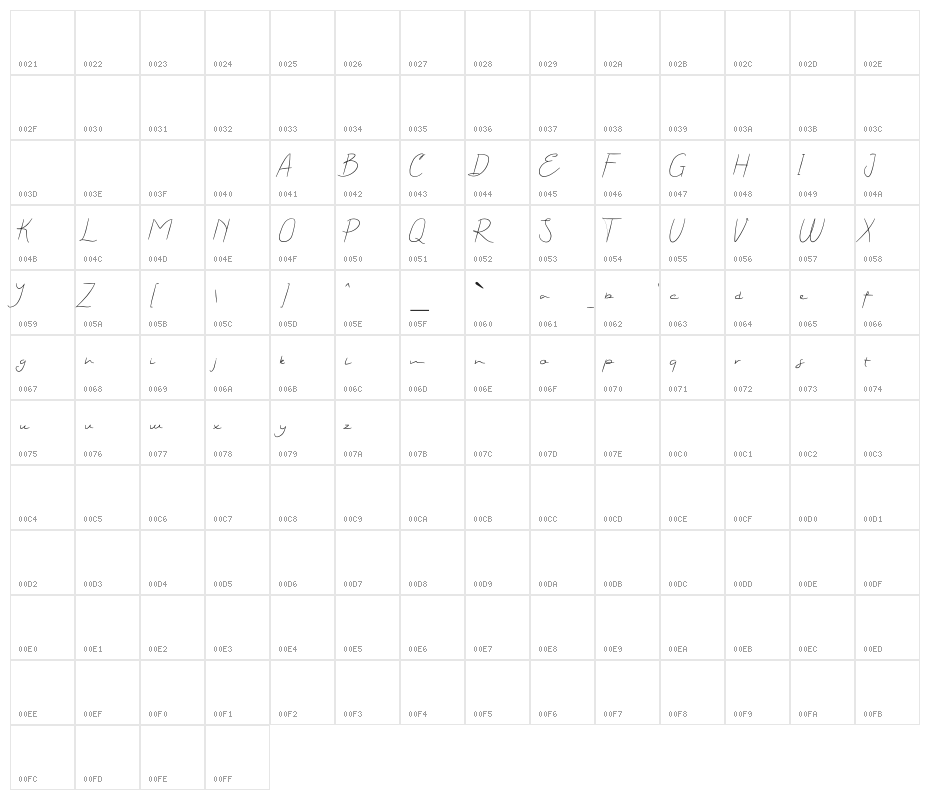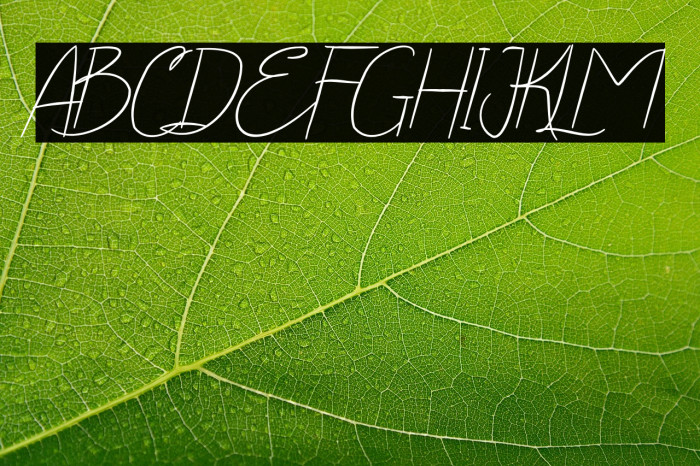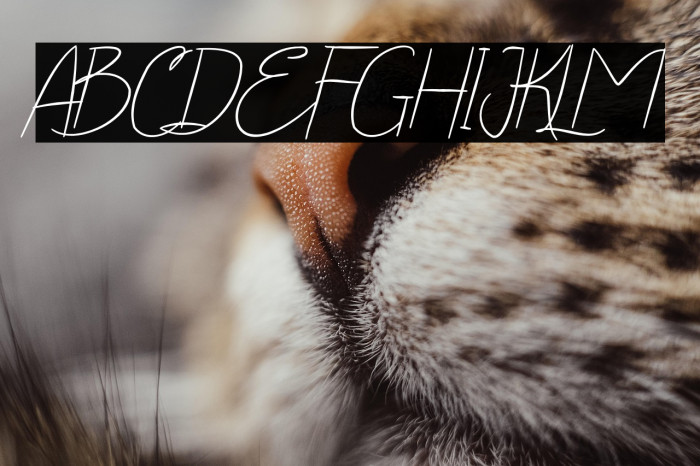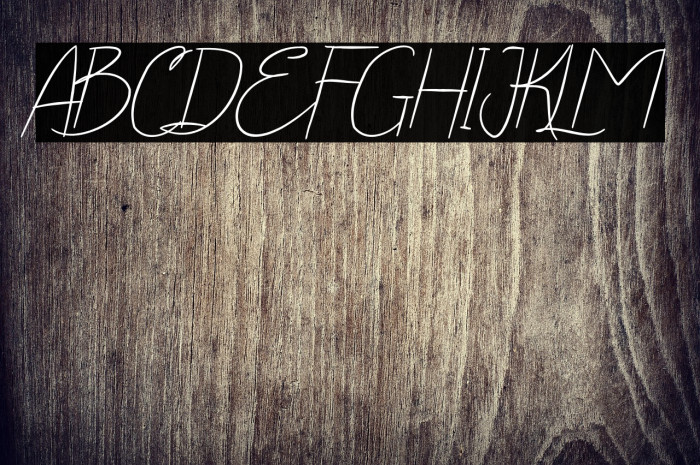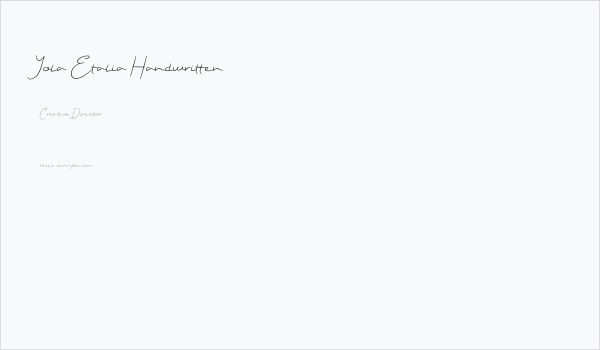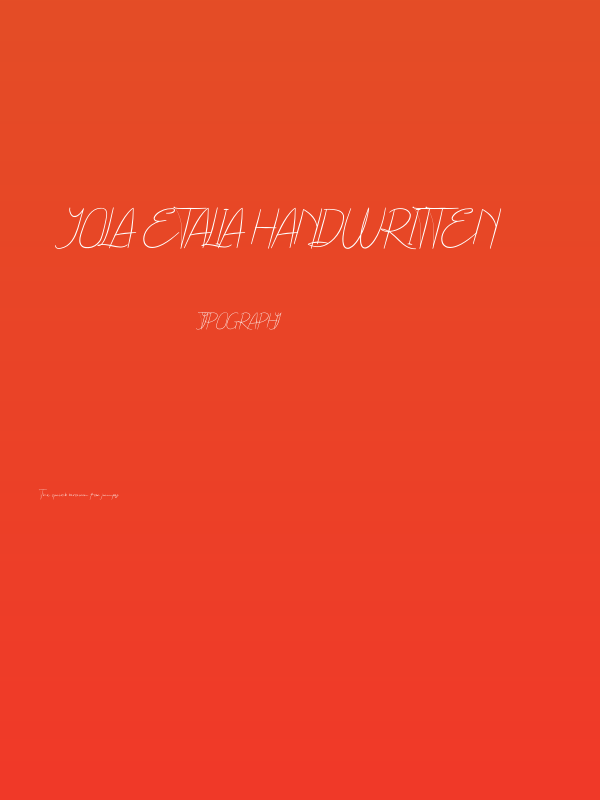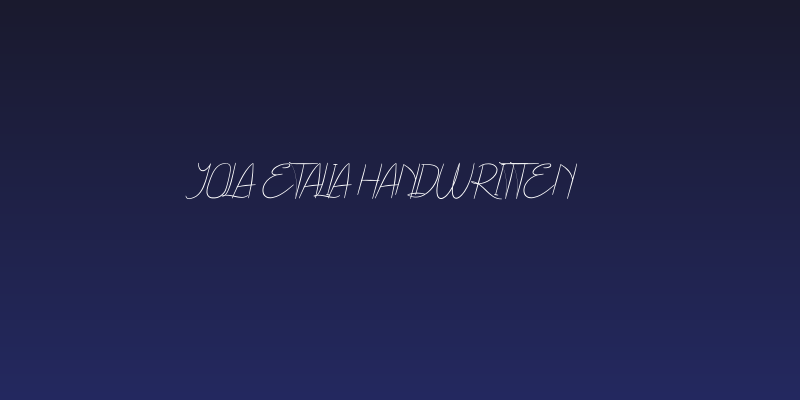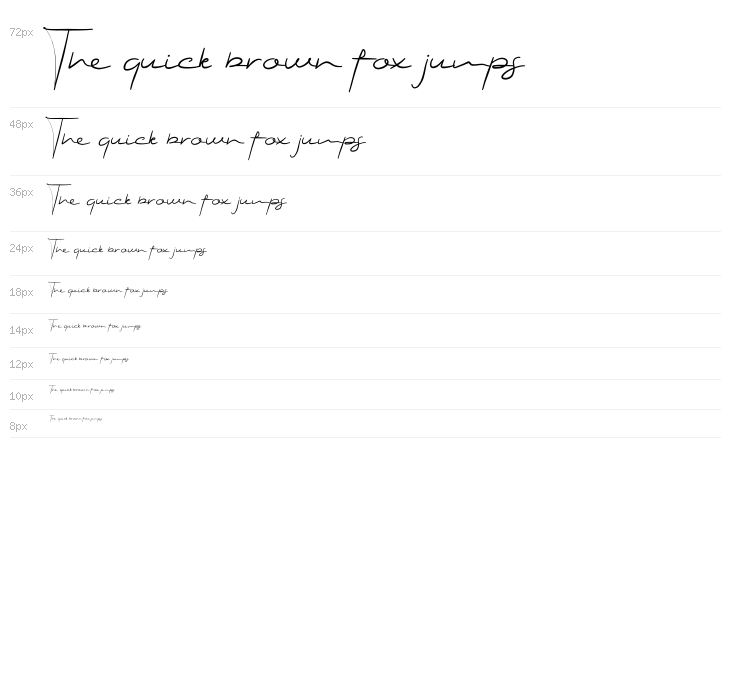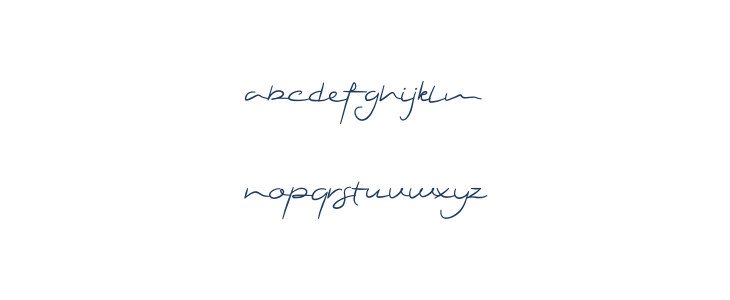
Yola Etalia Handwritten Font
Yola Etalia Handwritten Description
This font showcases a fluid, handwritten style that exudes elegance and personality. The characters are crafted with a natural flow, resembling authentic handwriting with a slight slant, adding a touch of sophistication. The uppercase letters are tall and slender, while the lowercase letters maintain a consistent, flowing baseline, enhancing readability. The strokes are smooth and continuous, with subtle variations in thickness that add depth and character. This font is ideal for projects that require a personal touch, such as invitations, greeting cards, and branding materials. Its handwritten nature makes it versatile for both formal and informal contexts, providing a unique and stylish appearance.
| Overall Style | Elegant, Personal, Stylish |
| Use Case | Invitations, Greeting cards, Branding |
| Proposed Projects | Ideal for invitations, greeting cards, branding, and personal projects. |